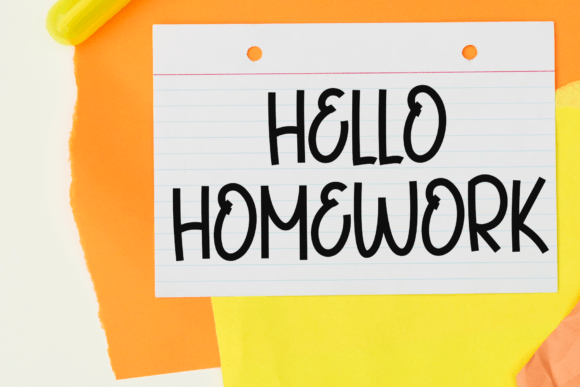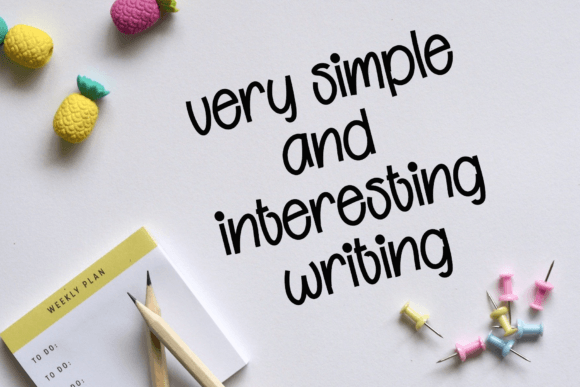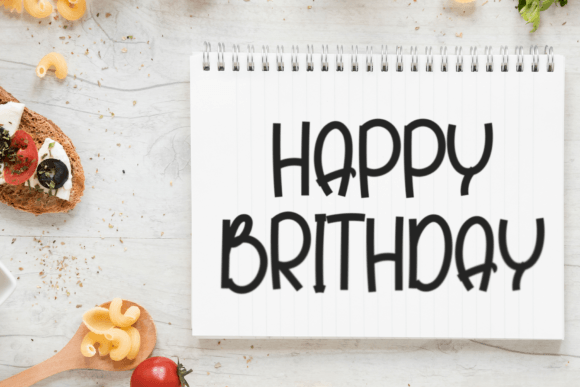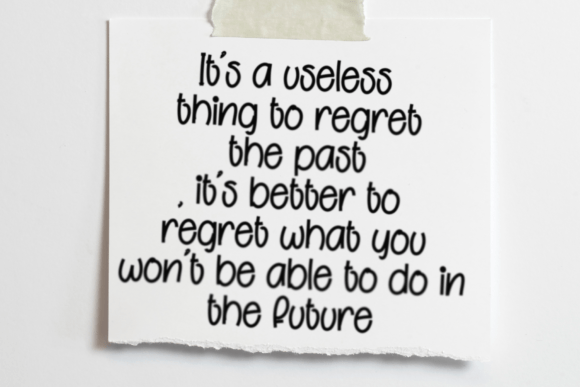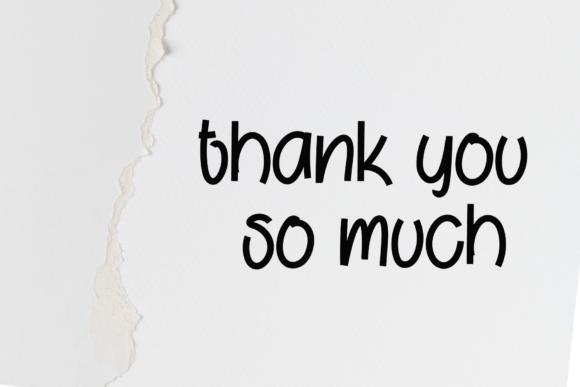
Introduction to Make Sense Font
Make Sense is a gorgeous handwritten font that will make your work stand out through its fun and whimsical lines.
It is perfect for product packaging, branding projects, magazine covers, social media posts, weddings, or anything that needs a sweet, handwritten touch .
Key Features of Make Sense Font
Why Choose Make Sense Font?